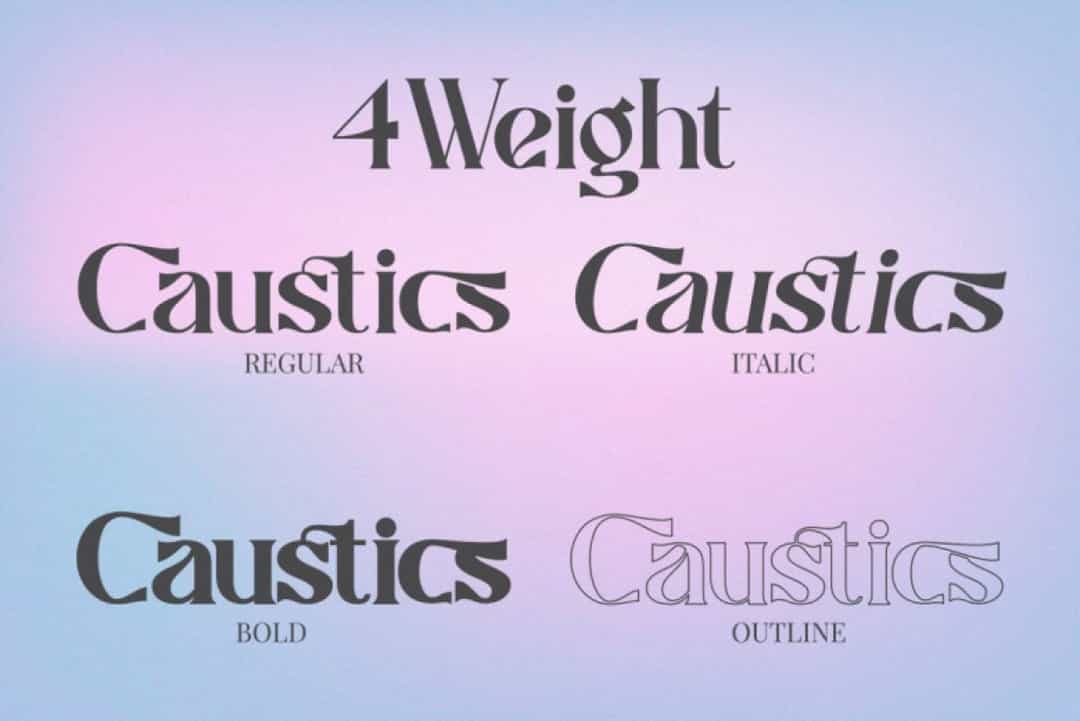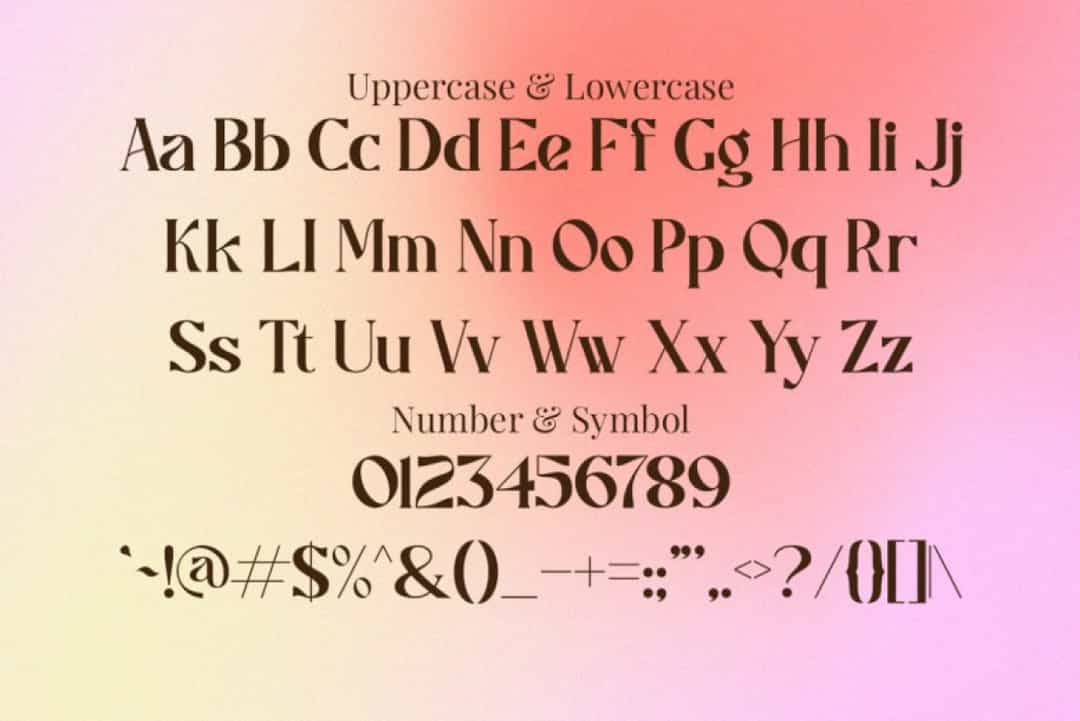
Caustics is a modern serif and classic font featuring four distinct styles that offer modern appeal, perfect for creating sophisticated logos, movie or book titles, fashion brands letters magazines clothing quotes social media posts etc. etc.